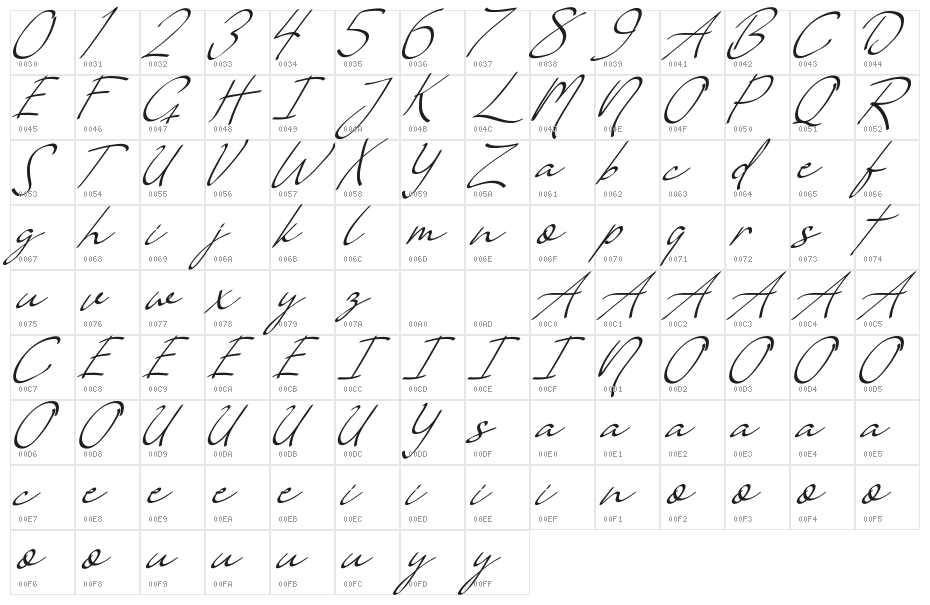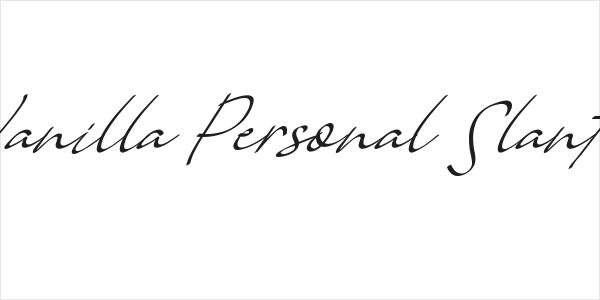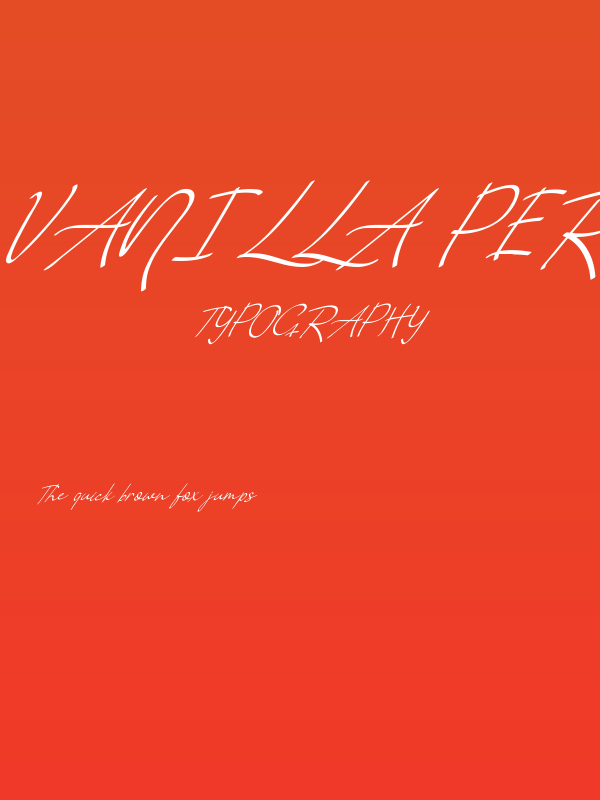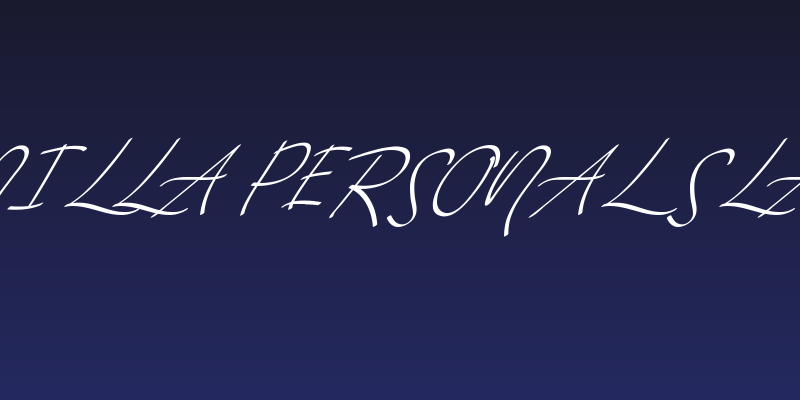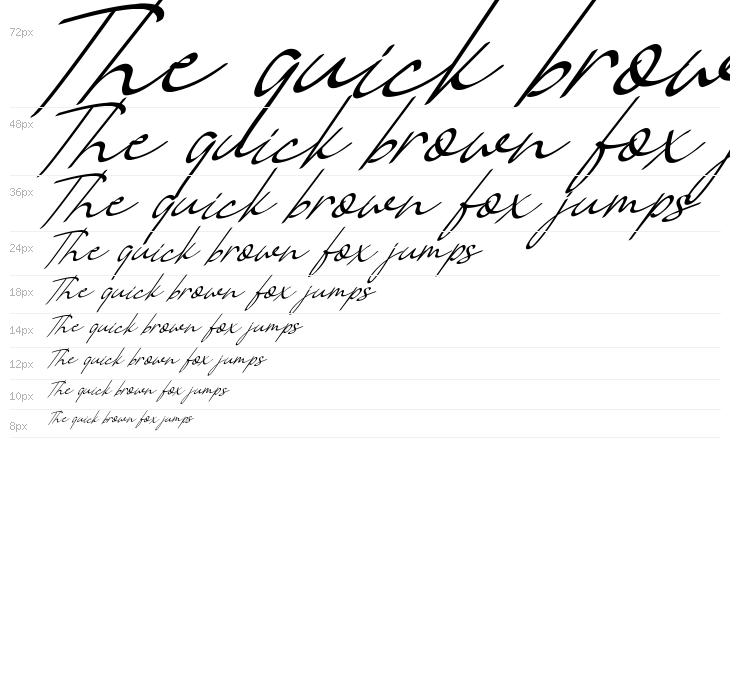
Vanilla Personal Slant Font
Vanilla Personal Slant Description
This font features a dynamic and fluid script style that mimics elegant handwriting. The letters are connected with smooth, flowing strokes, creating a sense of movement and grace. Each character is slightly slanted, adding to the personal and informal feel of the font. The uppercase letters are bold and prominent, while the lowercase letters maintain a consistent flow. The numbers and special characters are designed to match the overall aesthetic, ensuring a cohesive look. This font is perfect for projects that require a touch of sophistication and personality.
| Overall Style | Elegant, Personal |
| Use Case | Logos, Invitations, Personal projects |
| Proposed Projects | Ideal for wedding invitations, personal branding, greeting cards, and elegant packaging. |